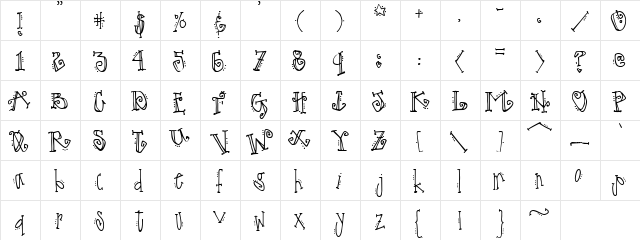
DJ Roman Funk Regular
Design Context for DJ Roman Funk Typeface
DJ Roman Funk has an approachable, lighthearted character — its loose, expressive forms are well-suited to children's content, casual branding, and fun-first design.
Font Pairing: Pairs well with a rounded or humanist sans for body copy, maintaining the friendly tone without relying on DJ Roman Funk to carry extended reading.
Pro Tip: Use DJ Roman Funk at larger display sizes where its expressive character can land. Pair with a clean, simple sans for body copy to maintain readability.